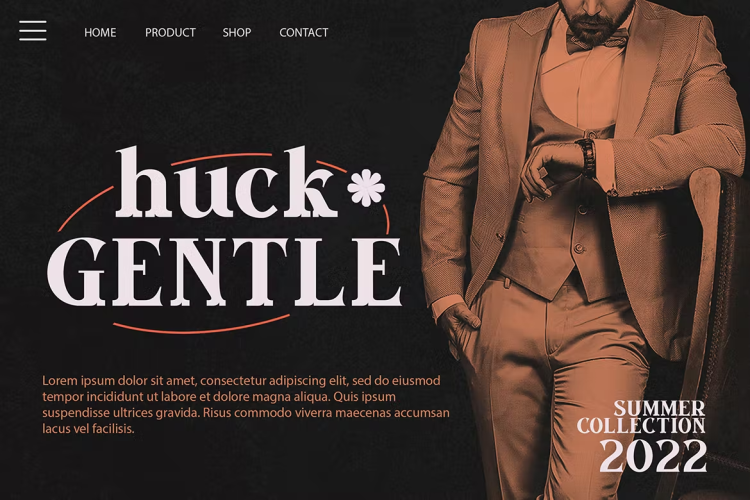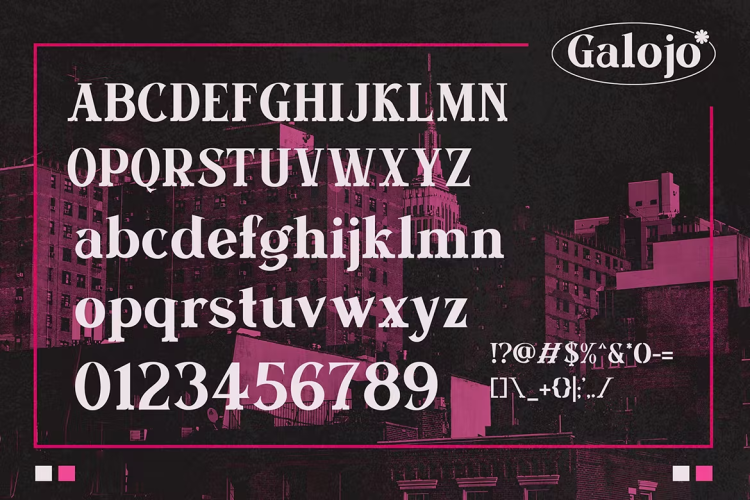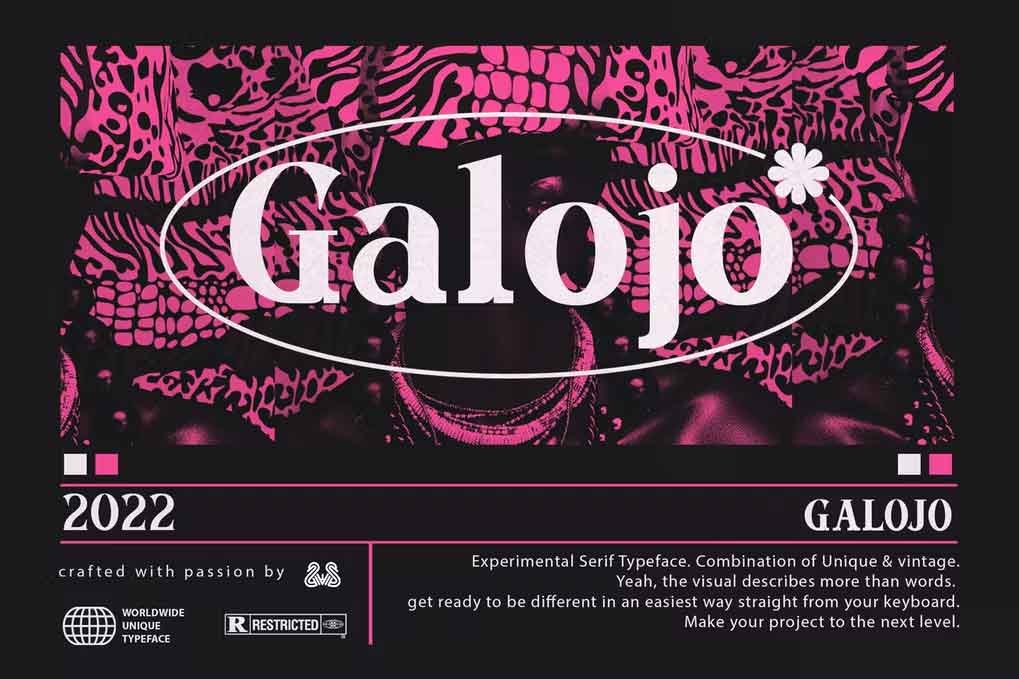
Galojo Typeface Font
Galojo – Vintage Serif Typeface
Unique Typeface Font Galojo for your personal or business purpose come with 4 different style, (Thin,Regular,Bold,Black)
Galojo Typeface Font is a Serif Fonts font that brings a professional and versatile look to your projects. Galojo – Vintage Serif Typeface Unique Typeface Font  Galojo  for your personal or business purpose come with 4 different style, (Thin,Regular,Bold,Black) what includes on ZIP  *font format ( OTF, TTF, WOF.